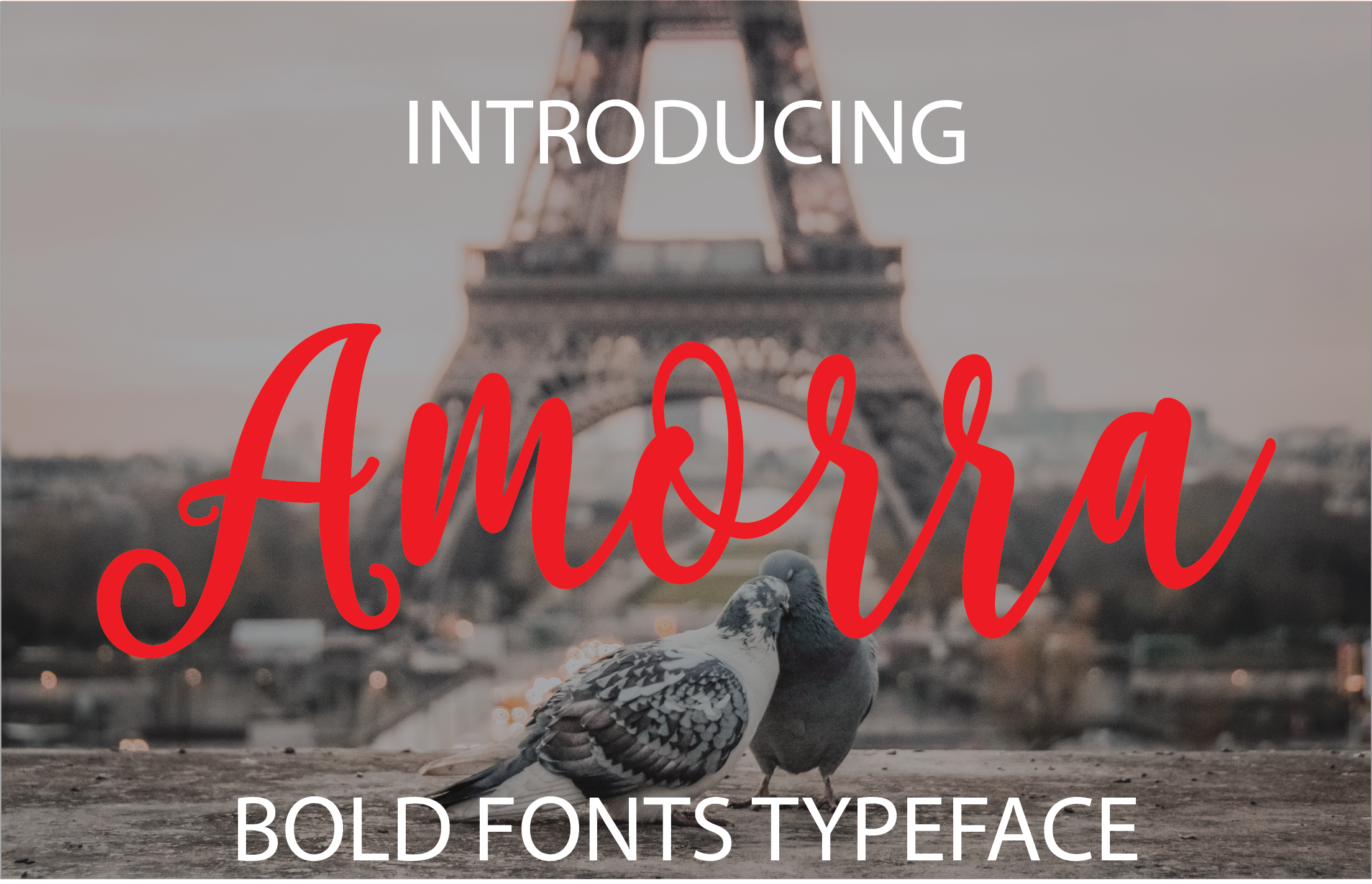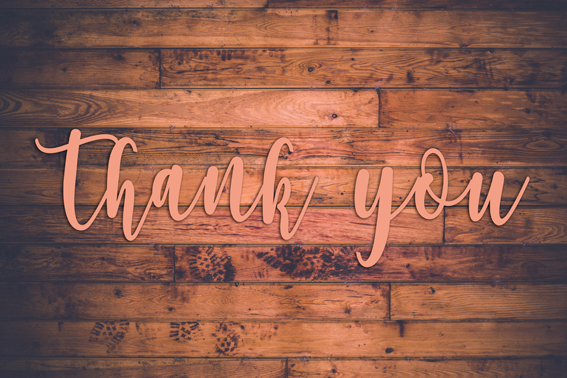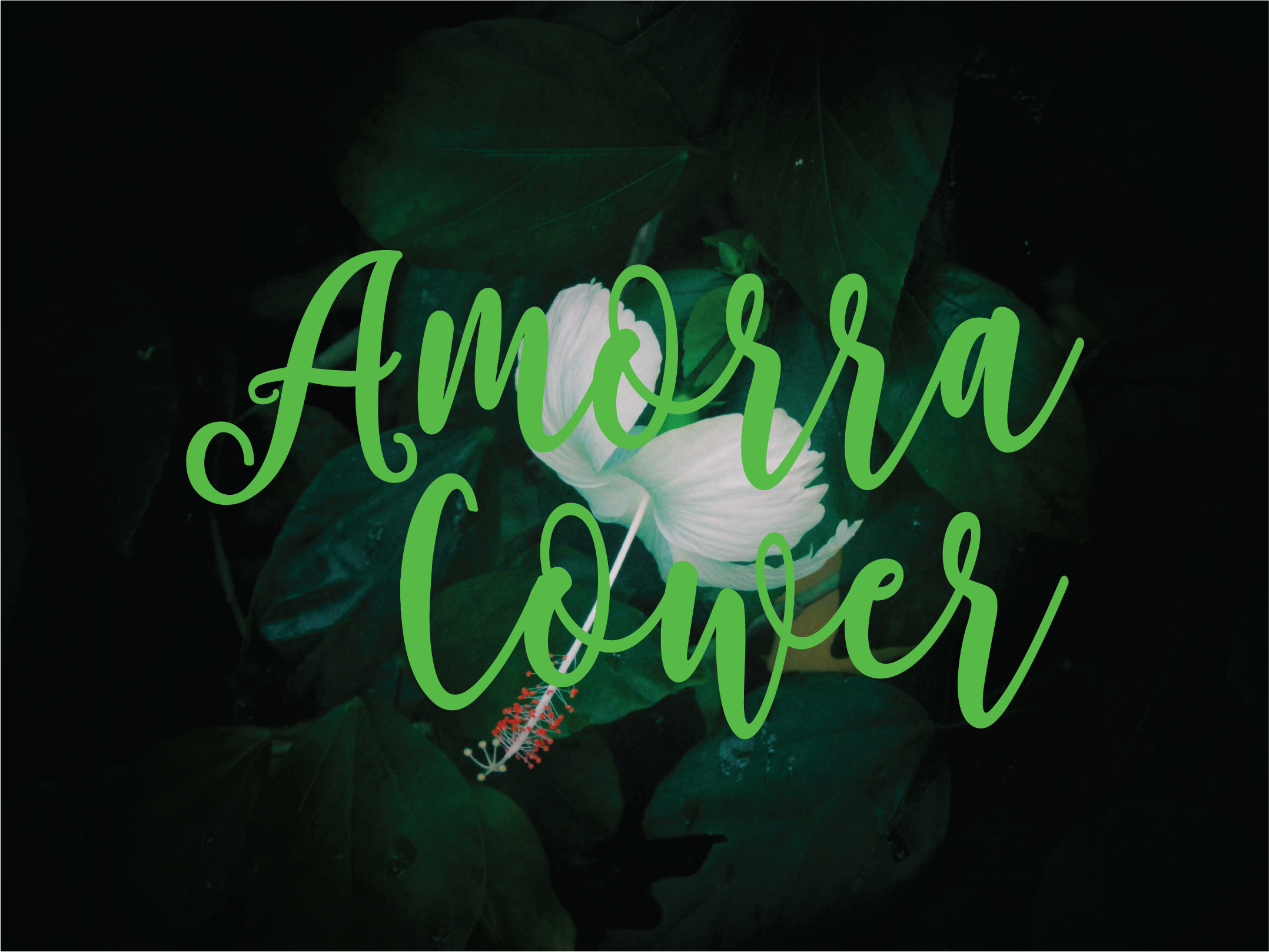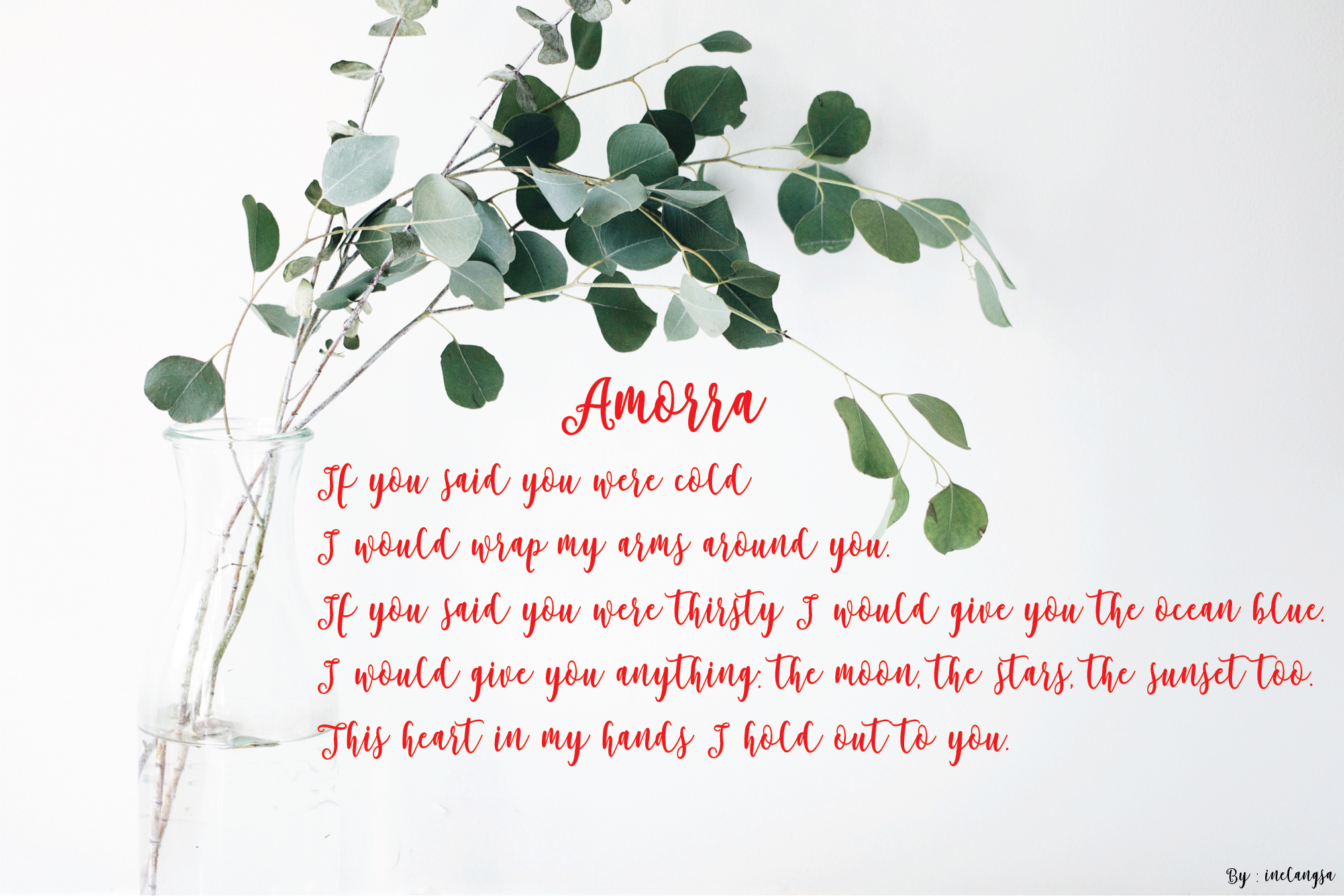
Amorra Font
About Amorra Font
This is an enticing and lovely script font with casual appeal. This is a relaxed and thickly weighted script font that can handle a number of uses and mediums.